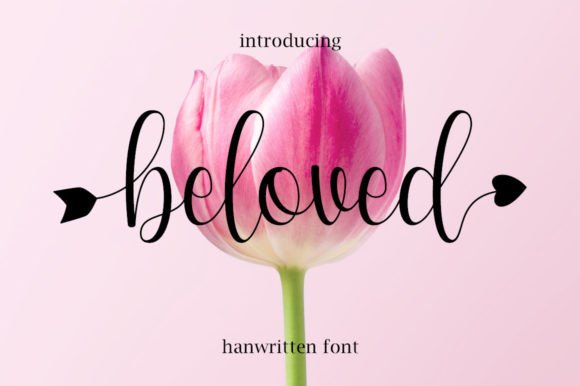
In a world of digital expression, where words dance across screens and pixels paint vivid tales, meet Beloved Font - a script font crafted with love and imagination. Step into a realm where letters flow like whispered secrets, where each stroke carries a tale of romance and charm. Beloved Font is not merely a collection of characters; it's an artistic journey, an invitation to let your creativity soar.
With its enchanting style and timeless allure, Beloved Font captivates hearts and captivates minds. Its smooth curves and delicate flourishes evoke a sense of elegance and sophistication, while its playful spirit adds a touch of whimsy and delight. Whether you're designing a heartfelt greeting card, a captivating social media post, or an unforgettable logo, Beloved Font will be your faithful companion, transforming your words into works of art.
Dive into Beloved Font's enchanting embrace and discover a world of limitless possibilities. Let your imagination run wild as you craft designs that speak to the soul, designs that leave an indelible mark on the hearts of your audience. Experience the magic of Beloved Font today and unlock a world of creative enchantment.